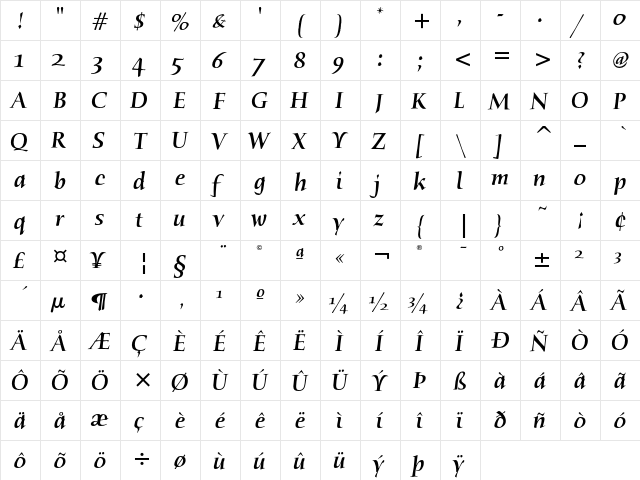
Humana Serif ITC Medium Italic
Design Context for Humana Serif ITC Typeface
Humana Serif ITC carries the refined structure of traditional serif typography, with bracketed terminals and considered proportions that communicate credibility and craft. The dynamic lean of this cut emphasises speed and emphasis in any layout.
Pro Tip: Use Humana Serif ITC for editorial body copy and considered headline work. Pair with a neutral sans for UI elements or captions to create a classic hierarchy.